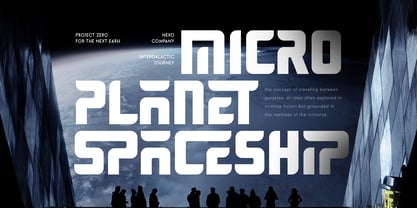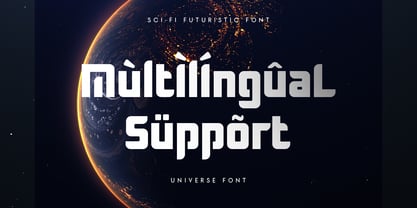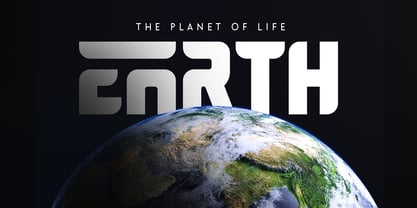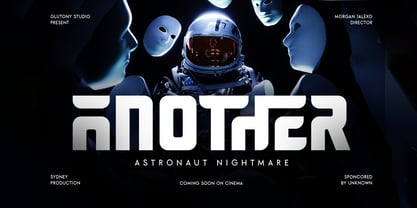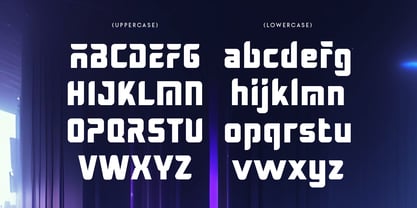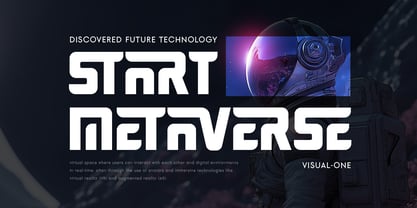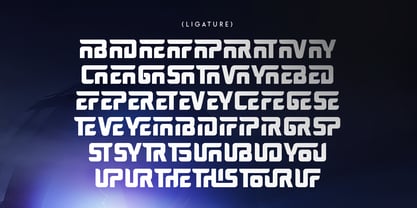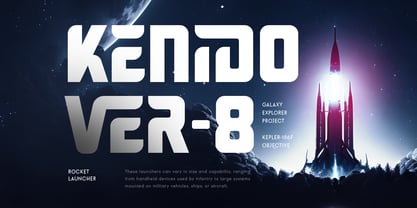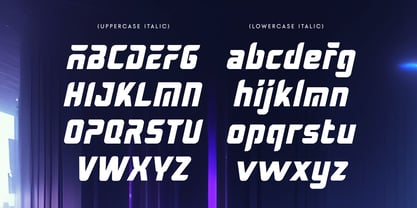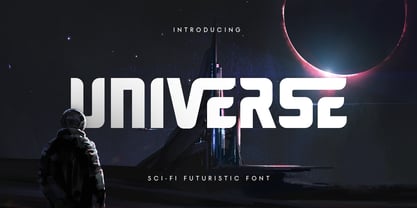
Universe SS
by Sensatype Studio
The Universe SS Font Family was designed by Zamroni Hamzah and published by Sensatype Studio. Universe SS contains 2 styles and family package options.
Universe - Scifi Futuristic Font
A Font Inspired by the Stars
Universe is a font that takes inspiration from the mysteries of the cosmos and the limitless possibilities of the future. With its sleek and modern design, it captures the essence of science fiction and futuristic aesthetics. Each letter is crafted with precision, giving your designs a bold and innovative look.
Perfect for Visionary Projects
Whether you’re designing for technology, gaming, or space-themed projects, Universe delivers a cutting-edge appeal. It’s perfect for creating logos, movie titles, and digital interfaces that need to stand out with a futuristic vibe. Its versatility ensures it shines in both print and digital applications.
Bring the Future to Life
Let your designs venture into the unknown with Universe. This sci-fi futuristic font transforms ideas into stellar visuals, making it ideal for creative minds who want to push the boundaries of design and imagination.
Universe Sci-Fi Futuristic Font Features:
• Ligature Characters Ready
• Punctuation, Number, and Symbol
• Uppercase and Lowercase
• Opentype Features
Multilingual Characters available for:
Afrikaans, Albanian, Asu, Basque, Bemba, Bena, Breton, Chiga, Cornish, Dutch, English, Estonian, Filipino, Finnish, Friulian, Galician, German, Gusii, Indonesian, Irish, Italian, Kabuverdianu, Kalenjin, Kinyarwanda, Luo, Luxembourgish, Luyia, Machame, Makhuwa-Meetto, Makonde, Malagasy, Manx, Morisyen, North Ndebele, Nyankole, Oromo, Portuguese, Quechua, Romansh, Rombo, Rundi, Rwa, Samburu, Sango, Sangu, Scottish Gaelic, Sena, Shambala, Shona, Soga, Somali, Spanish, Swahili, Swedish, Swiss.